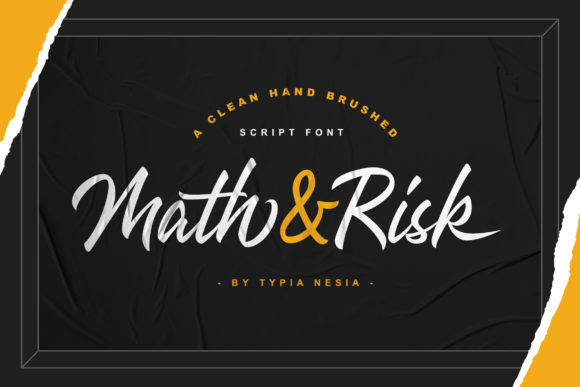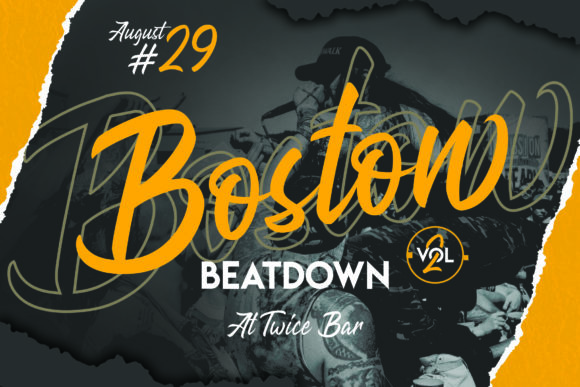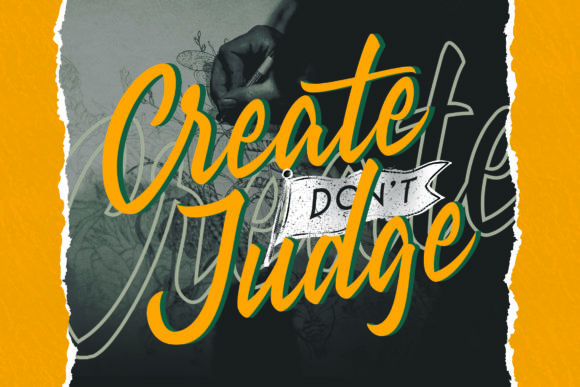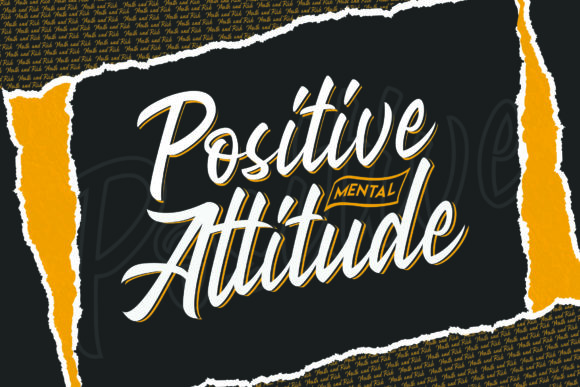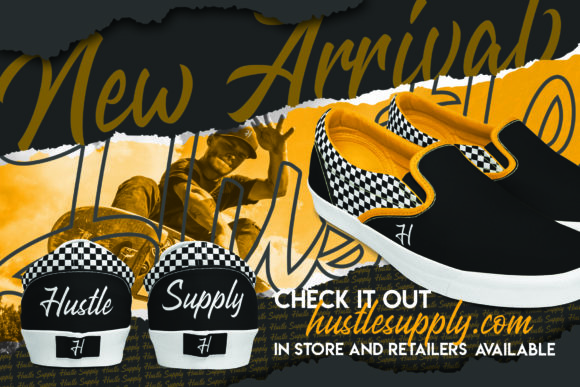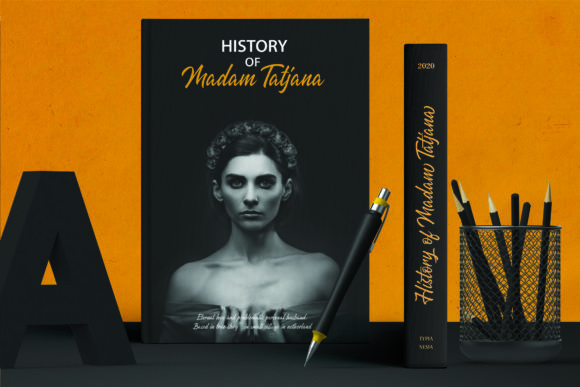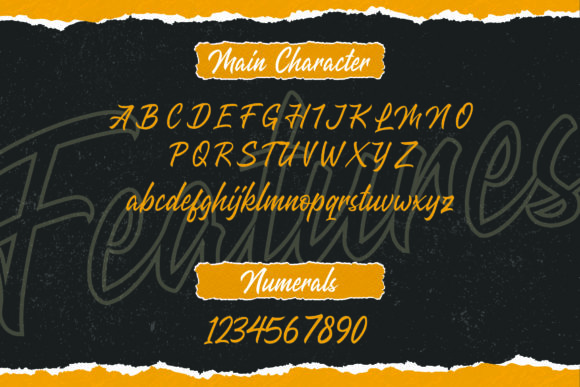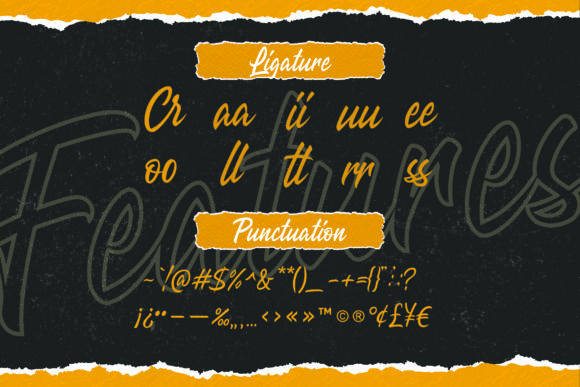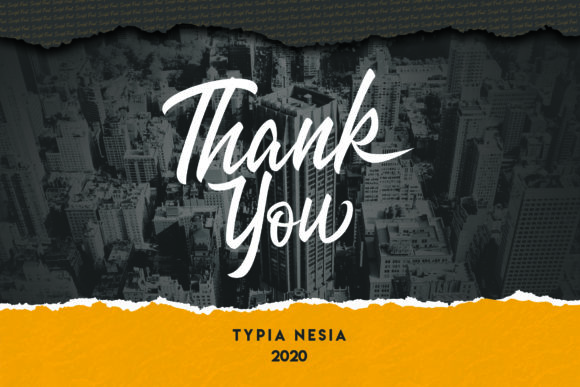
Math and Risk Font
About Math and Risk Font
Math and Risk is a gorgeous and bold script font that radiates authenticity. Get inspired by its unique charm, and turn any design idea into a true standout!